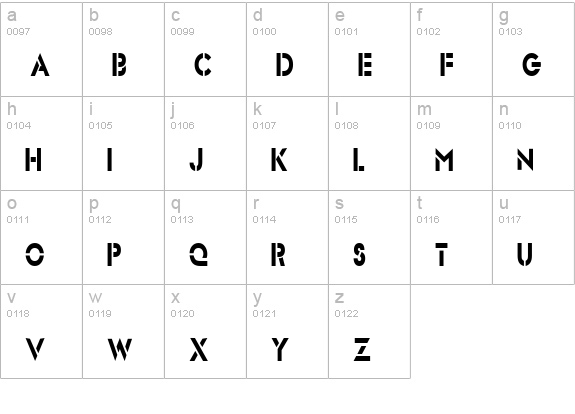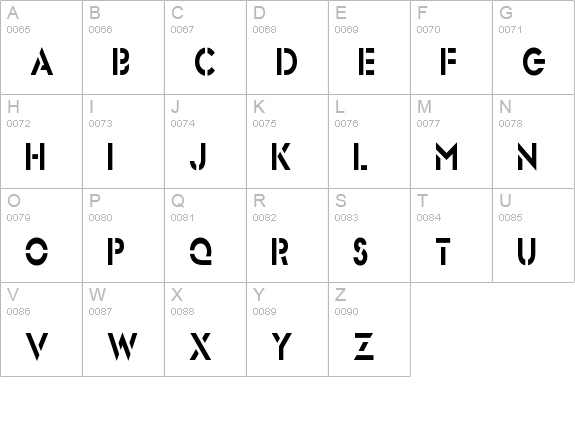
Stencil SansCondensed Normal Font Details
Stencil SansCondensed Normal is the standard, neutral variant in the Stencil typeface family \xE2\x80\x94 well suited to general body text, paragraphs, and standard typographic work.
Introducing Stencil SansCondensed Normal font, a sleek and modern typeface designed to add a touch of sophistication to your projects. This versatile font is perfect for a wide range of design applications, from branding and advertising to packaging and web design. Its clean lines and condensed form make it ideal for creating eye-catching headlines and bold statements. What sets Stencil SansCondensed Normal font apart is not only its striking appearance, but also the fact that it is completely free to download. That's right, you can enhance your designs with this stylish font without having to spend a dime. Simply head over to FontsMarket.com to get your hands on this fantastic typeface and start incorporating it into your projects today. With Stencil SansCondensed Normal font, you can elevate your designs and make a lasting impression on your audience. Whether you're working on a branding project, creating social media graphics, or designing a website, this font is sure to make a statement. Download it for free now and let your creativity shine with Stencil SansCondensed Normal font.